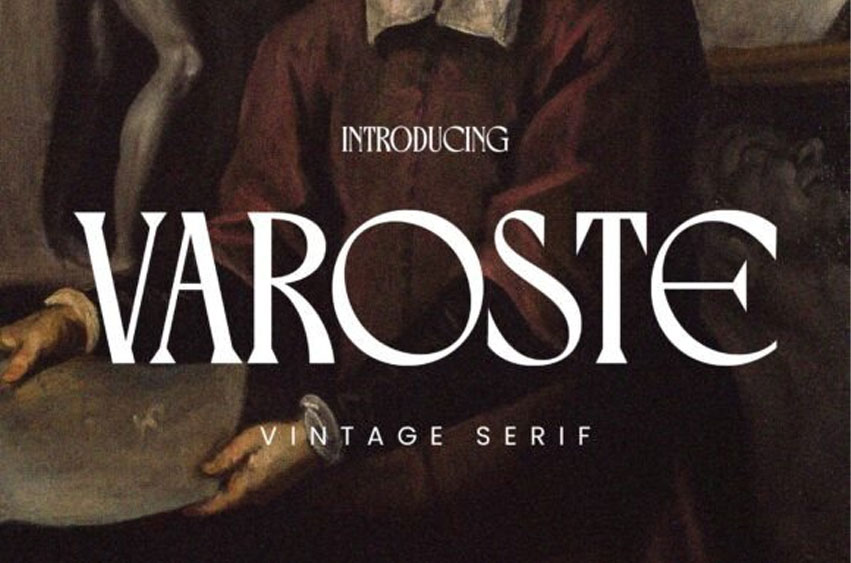
Varoste Font
Varoste Font is a modern vintage condensed display typeface that exudes elegance and sophistication. Its geometric letterforms are thoughtfully crafted to bring a timeless charm to your designs.
Featuring distinctive circular shapes in letters like O, Q, C, and G with a subtle slanted axis, Varoste seamlessly blends classic flair with unique character.